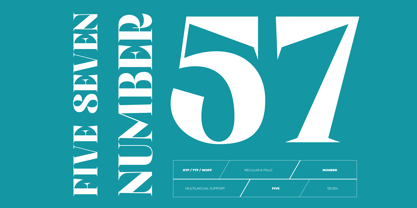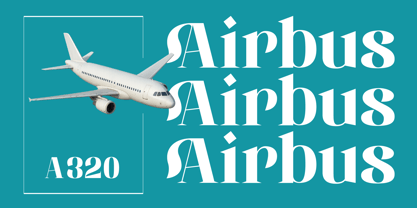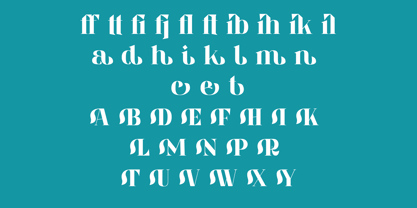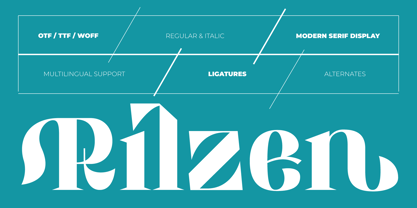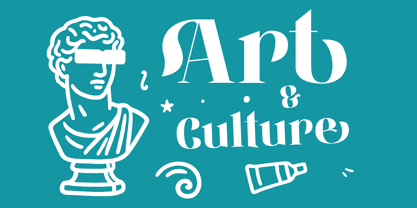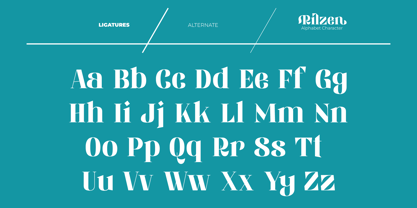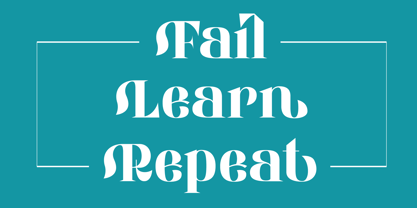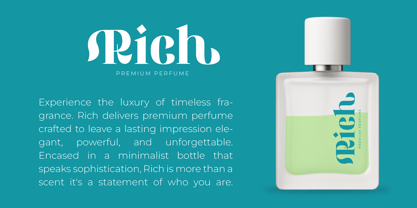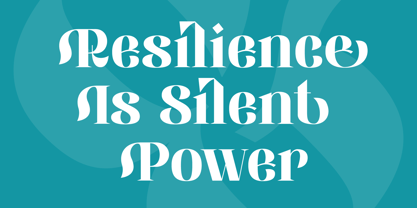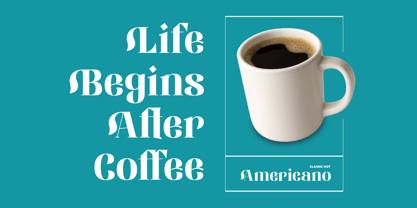
Rilzen
La familia tipográfica Rilzen fue diseñada por Risma Mulyasari y publicada por Risma Type. Rilzen contiene 2 estilos y opciones de paquete familiar. Más información sobre esta familia
# 🔶 Rilzen
Category: Modern Serif Display Typeface (Structured Elegance with a Touch of Attitude)
## 🌟 Where Classic Form Meets Modern Spirit
Introducing Rilzen, a modern serif display typeface crafted for bold expression and visual elegance. With deliberate angles, smooth transitions, and sleek ligatures, Rilzen is made to elevate headlines, branding, and editorial design with both strength and subtlety.
## 🔑 Key Features
* ✒️ Sharp serif details with smooth curves for dynamic contrast
* 🎯 Clean proportions for a commanding yet approachable presence
* 🔤 Alternates, ligatures & stylistic sets for typographic versatility
* 🌍 Multilingual support (Latin Extended + smart accents)
* 🖥️ Perfect for high-resolution digital and print displays
## 💼 Perfect For
* 🗞️ Fashion editorials & lookbooks
* 🛍️ High-end branding and packaging
* 🧾 Art direction and modern magazine layouts
* 🖋️ Personal branding and creative identity
* 📲 Stylish quotes & digital promo graphics
> Rilzen captures attention not with noise, but with grace and precision. A serif made to speak volumes — quietly and beautifully.